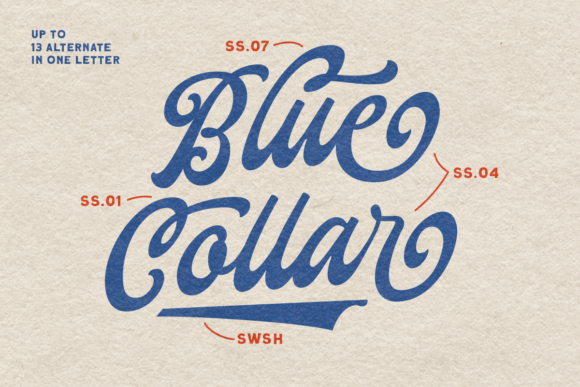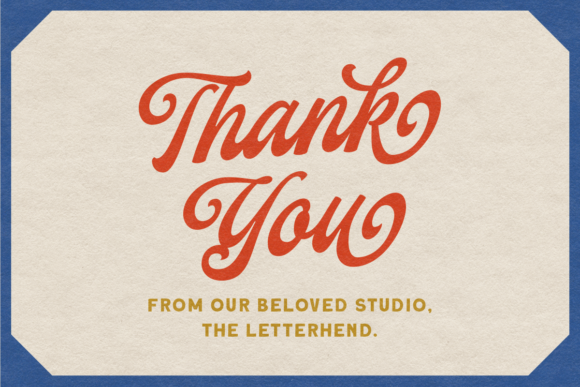
About Yorkson Font
Yorkson is a stylish and incredibly retro script font. It looks stunning on wedding invitations, thank you cards, quotes, greeting cards, logos, business cards and every other design which needs a handwritten touch.